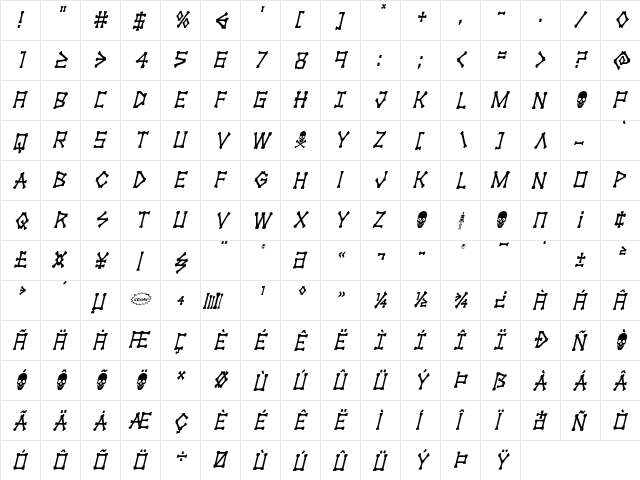
xBONES Condensed Italic Condensed Italic
Design Context for xBONES Condensed Italic Typeface
xBONES Condensed Italic is a composed and adaptable typeface that performs quietly and consistently across a wide range of design contexts. The slanted form adds forward momentum and visual energy. The condensed width makes it efficient for tight spaces without sacrificing legibility.